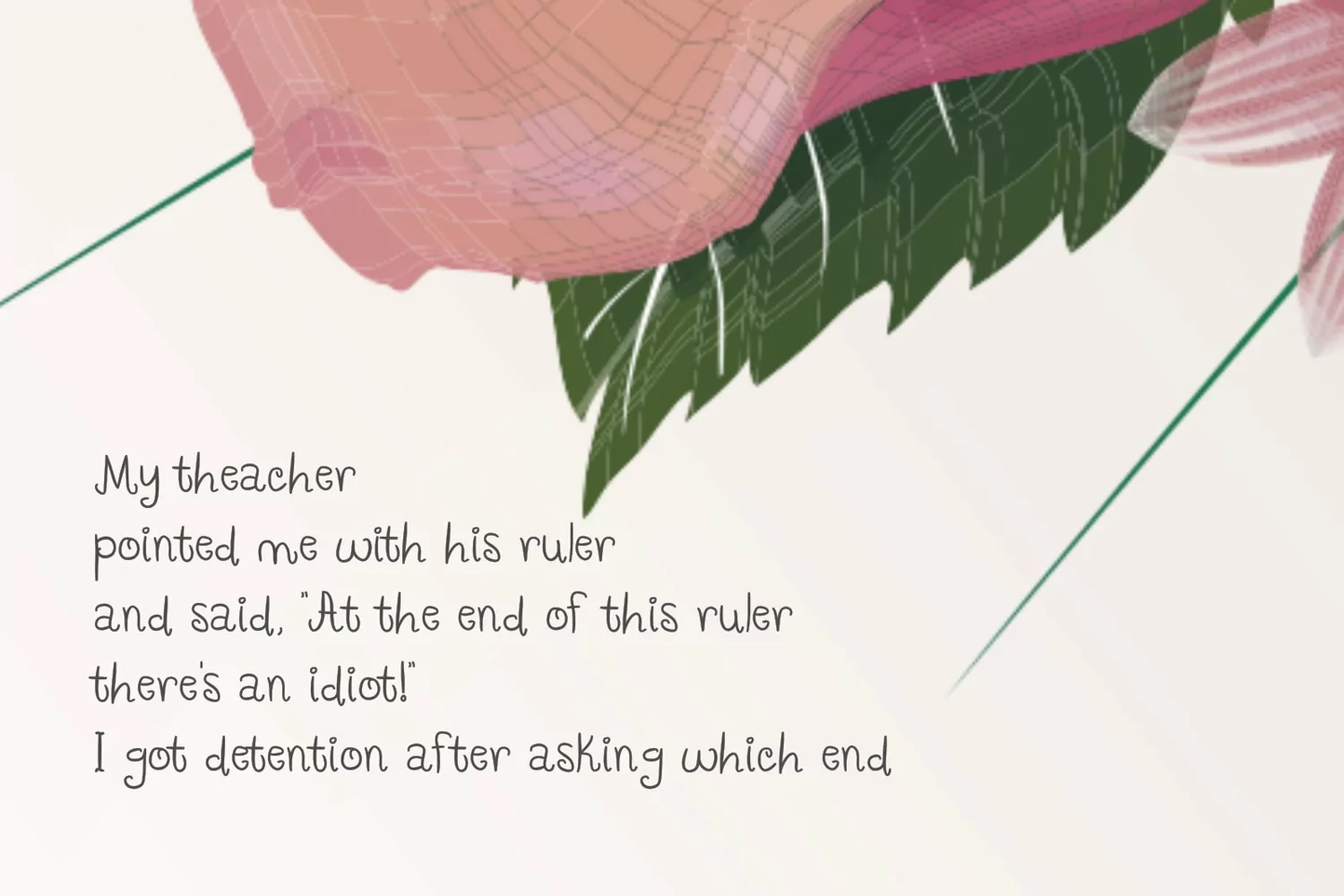
**It's Madison!**
Introducing Madison Typeface - A handwritting and awesome character! it's perfect for logos, name card, magazine layouts, invitations, headers, or even large-scale artwork.